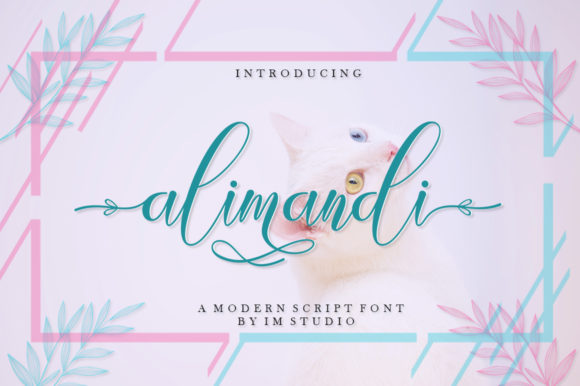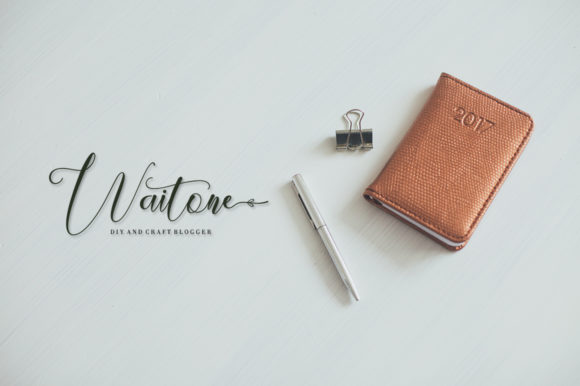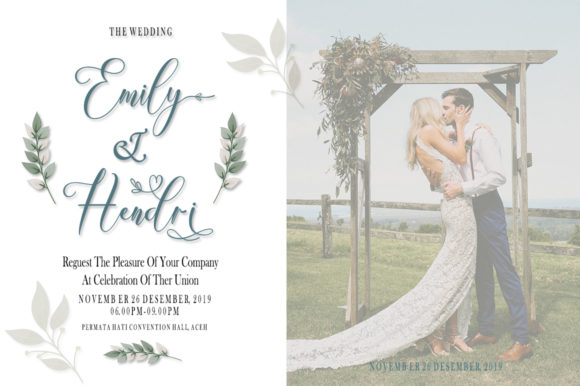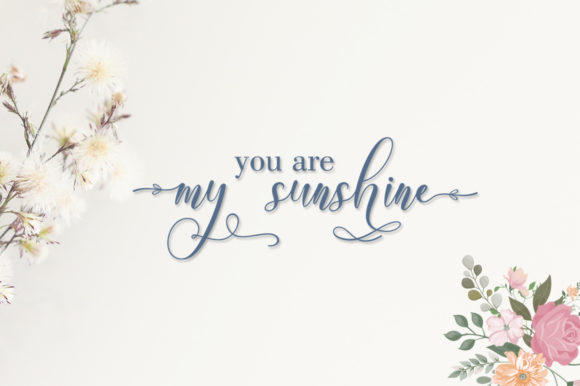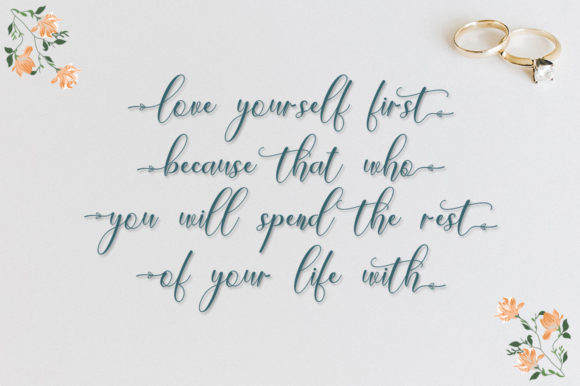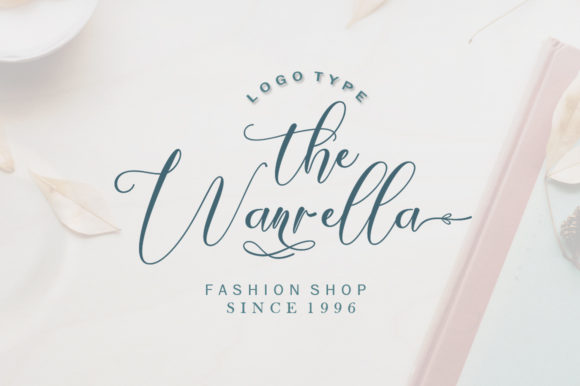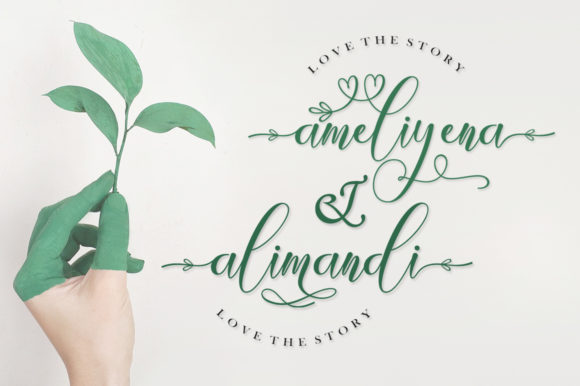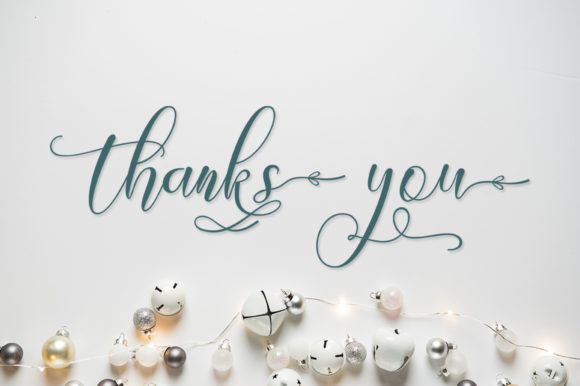
HomeScript FontsAlimandi Font Script Fonts Alimandi Font FacebookXPinterestWhatsApp Alimandi Font Poster 2 Alimandi Font Poster 3 Alimandi Font Poster 4 Alimandi Font Poster 5 Alimandi Font Poster 6 Alimandi Font Poster 7 Alimandi Font Poster 8 About Alimandi Font Alimandi is a light and charming handwritten font, perfect for all things hand-made! DOWNLOAD ON CREATIVE FABRICAThis font is sold and delivered by Creative Fabrica. Font Canyon may earn a commission if you buy through this link. People also explored Handmate Font Ekela Font Monday Font Sony Sporshe Richard Miller Locksmith Font Pistachio Font Christya Font Editable September 2024 Calendar 276 0 TagsAlimandi Font Previous articleNaella FontNext articleBerrylina Script Font LEAVE A REPLY Cancel reply Comment: Please enter your comment! Name:* Please enter your name here Email:* You have entered an incorrect email address! Please enter your email address here Website: Save my name, email, and website in this browser for the next time I comment. Personal Use Free Carved Wood Personal Use Free Read more about this font Borg Personal Use Free Read more about this font Letter Hanger Personal Use Free Read more about this font Rozalyn Personal Use Free Read more about this font BLOG Top 10 Handwritten Fonts That Elevate Your Designs Top 10 Handwritten Fonts That Will Elevate Your Designs Handwritten fonts bring a warm, personal touch to every creative project. Whether you're designing logos, invitations,... Free vs Paid Fonts: Why Investing in Premium Fonts Is Worth It Elegant Wedding Invitation Fonts – Handwritten & Script Fonts 5 Fonts That Will Dominate Design Trends in 2026